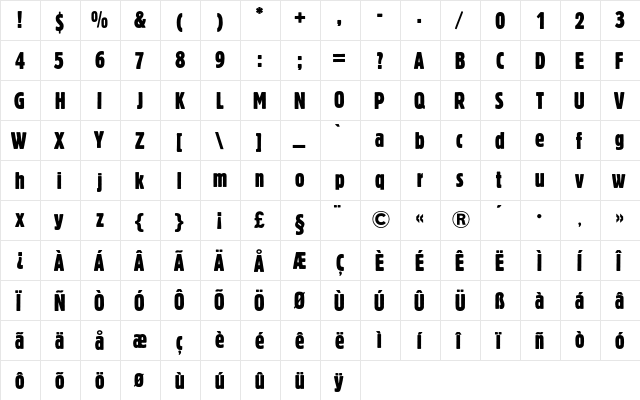
Block Berthold BQ Regular
Design Context for Block Berthold BQ Typeface
Block Berthold BQ takes a measured approach to typography — its balanced proportions and neutral character make it a reliable workhorse for both digital and print work.
Pro Tip: Use Block Berthold BQ in both headline and body roles to test its range before committing to a single application.